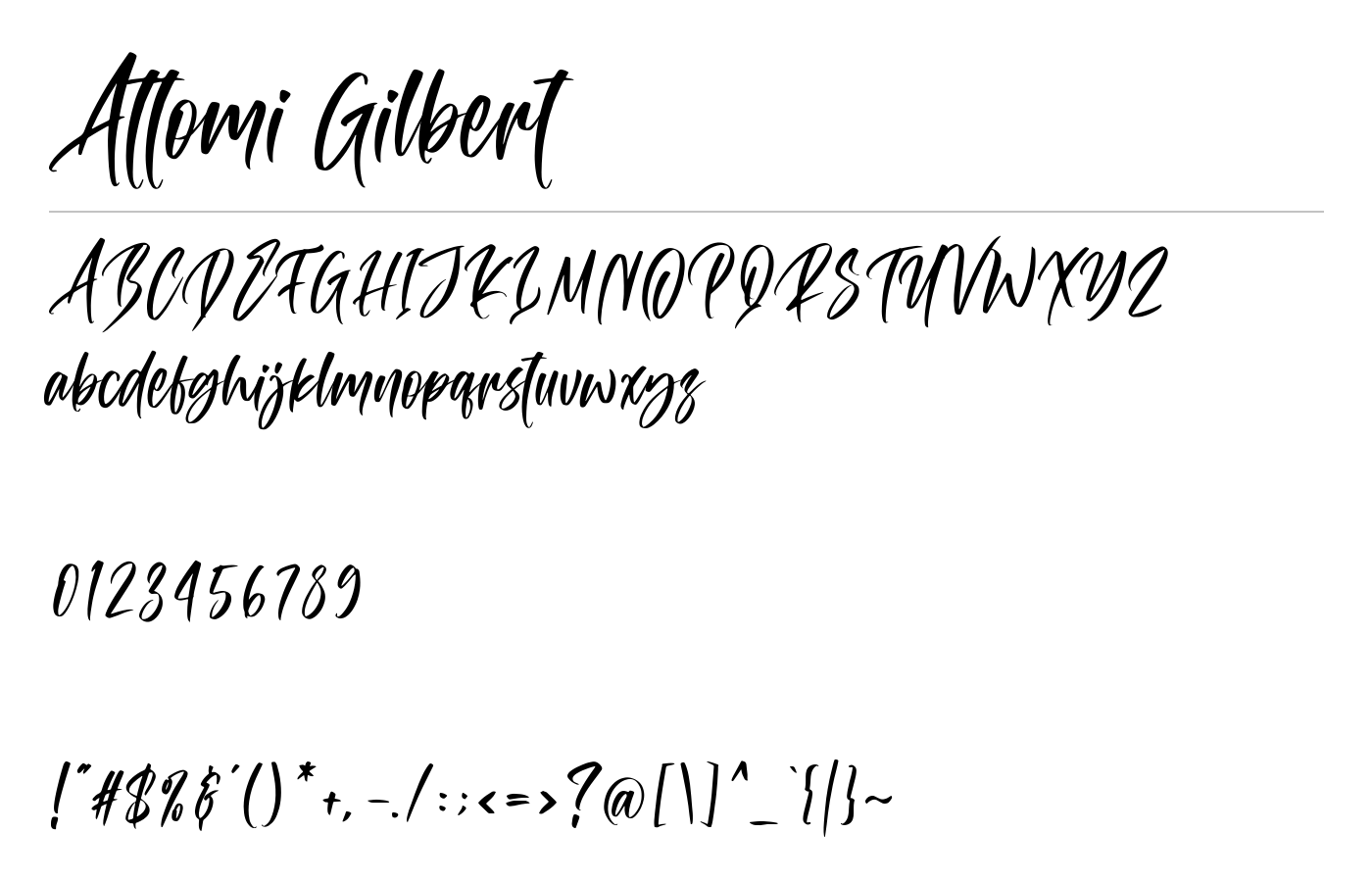
Attomi Gilbert is a lively and elegant script font featuring smooth, flowing strokes with a hand-lettered feel. Its tall, slender letterforms and variable stroke weight create a dynamic and stylish appearance, perfect for adding a personal yet sophisticated touch to branding, invitations, or creative projects. This font works especially well in headlines or logos where a blend of modern flair and handwritten charm is desired.
Attomi Gilbert Font
About Attomi Gilbert Font
| Font family | Attomi Gilbert Font |
| Designer | Anton Cahyono |